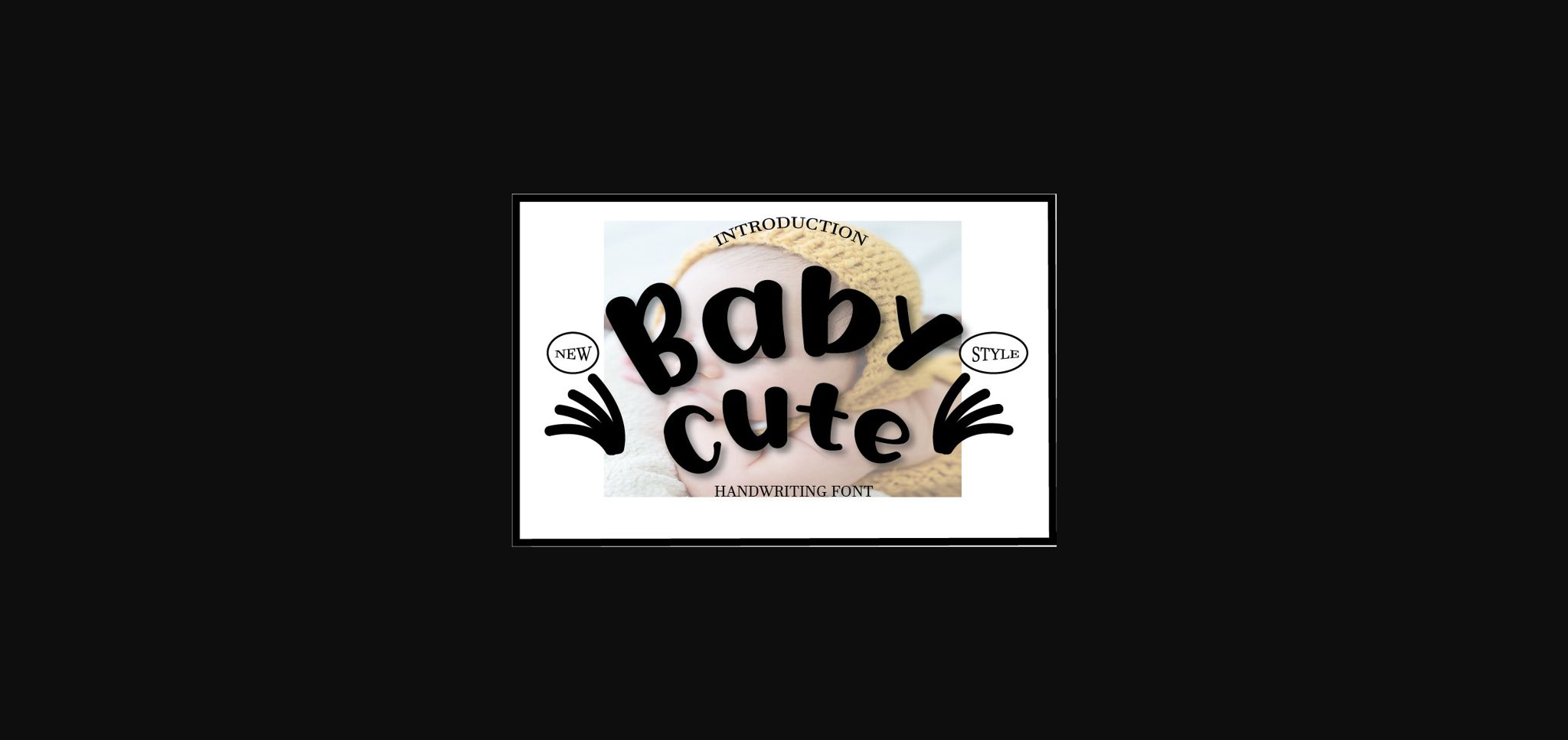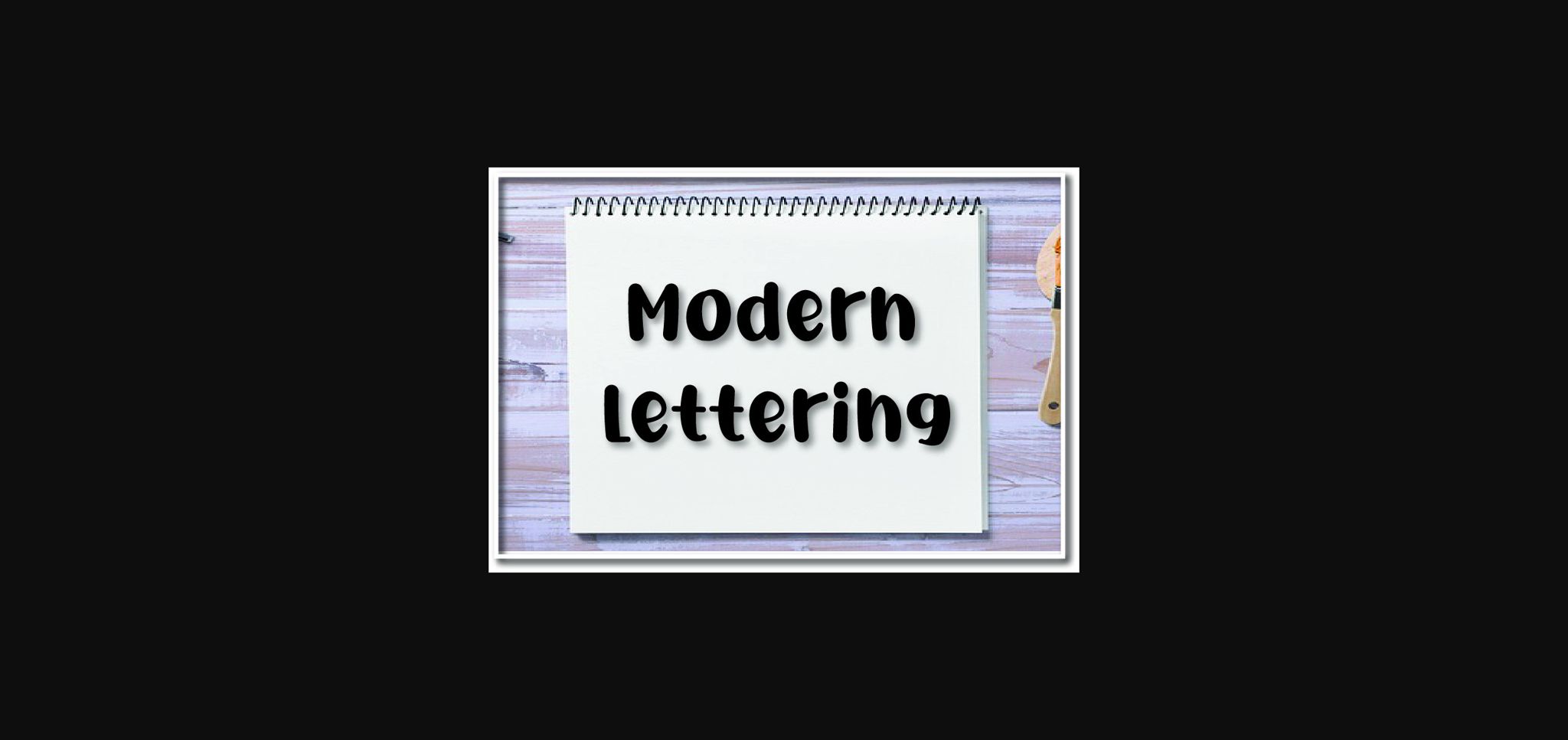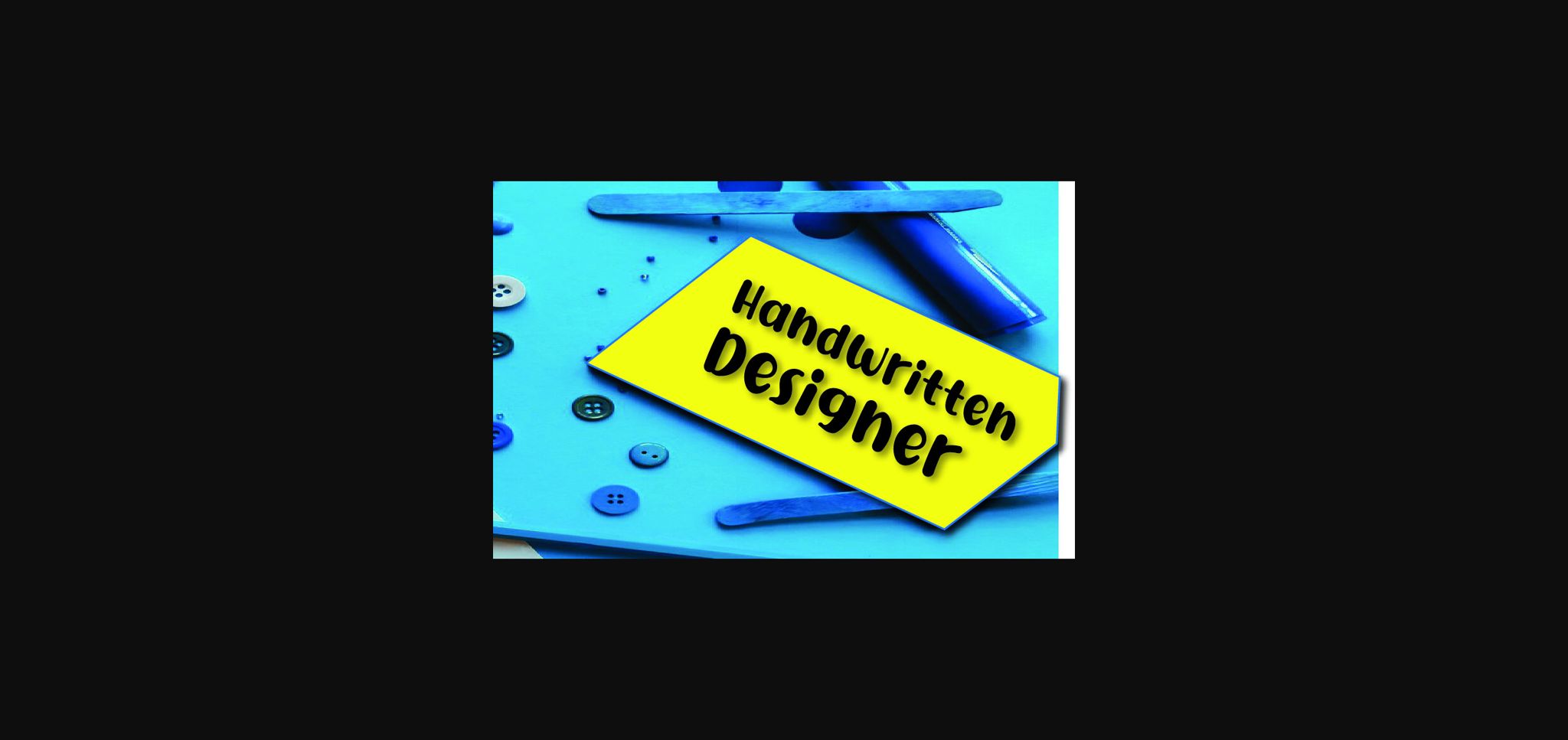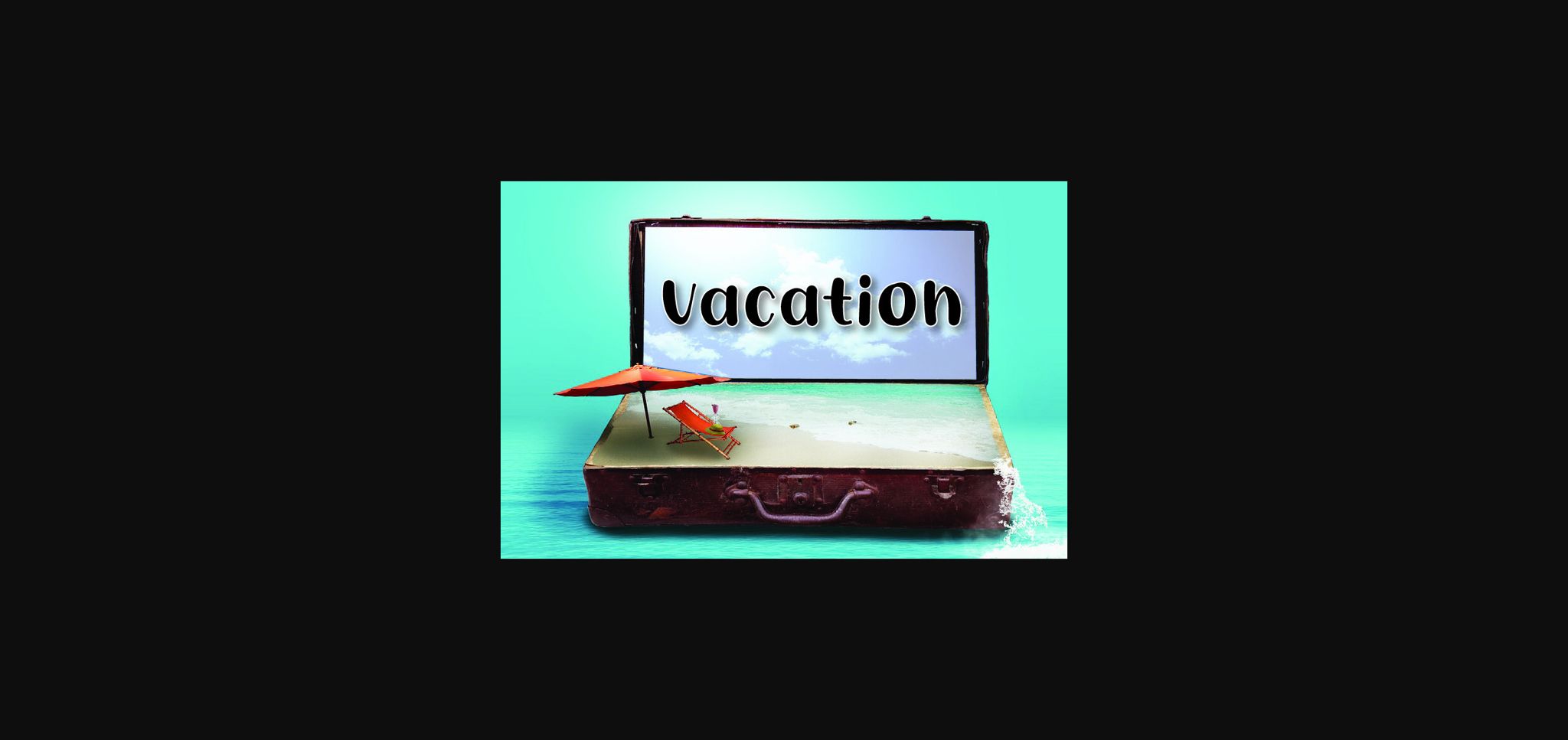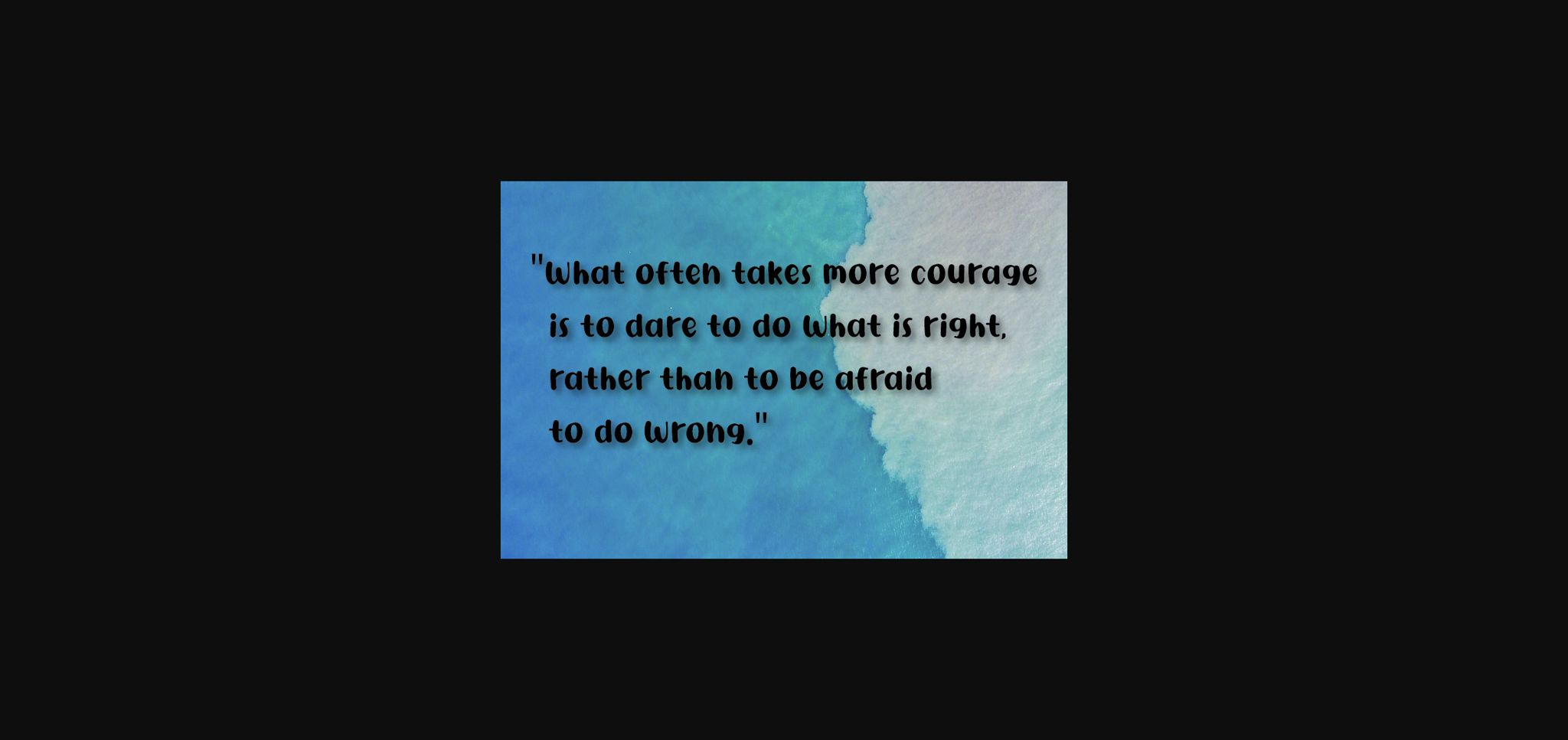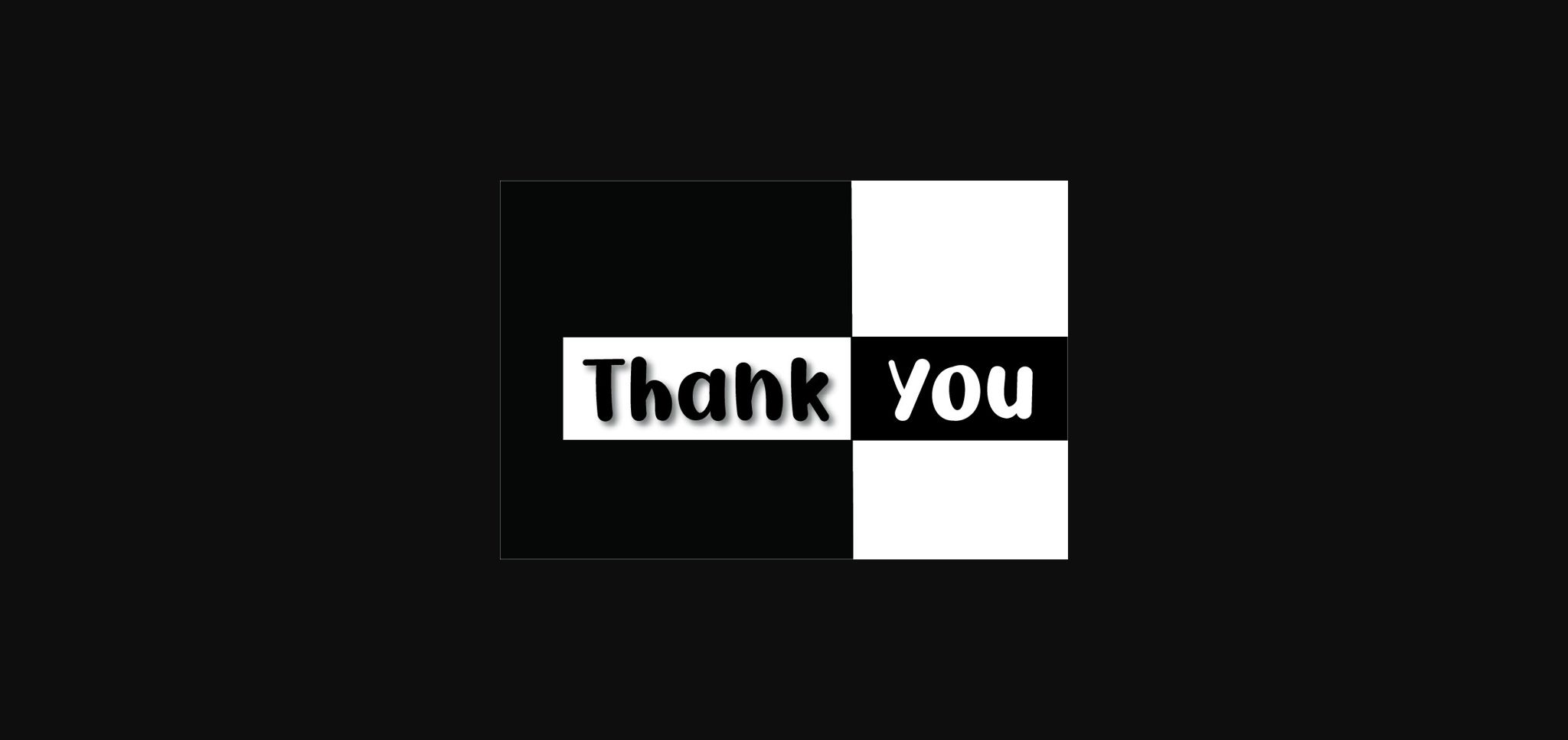
About Baby Cute Font
Baby Cute is a sweet and cheerful sans-serif font. This gentle font will look gorgeous on a variety of design ideas. It will add a joyful and romantic touch to each of your projects! Perfectly fit for branding, logos, greeting cards, or anything that requires a lovely touch.